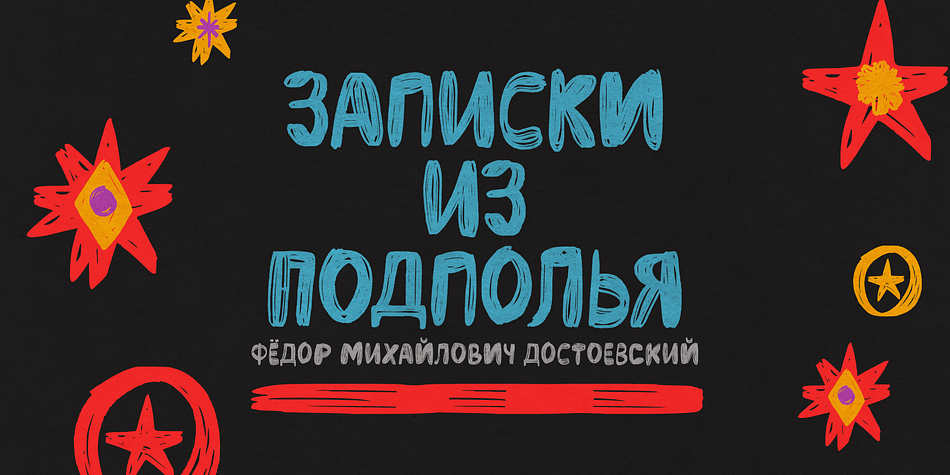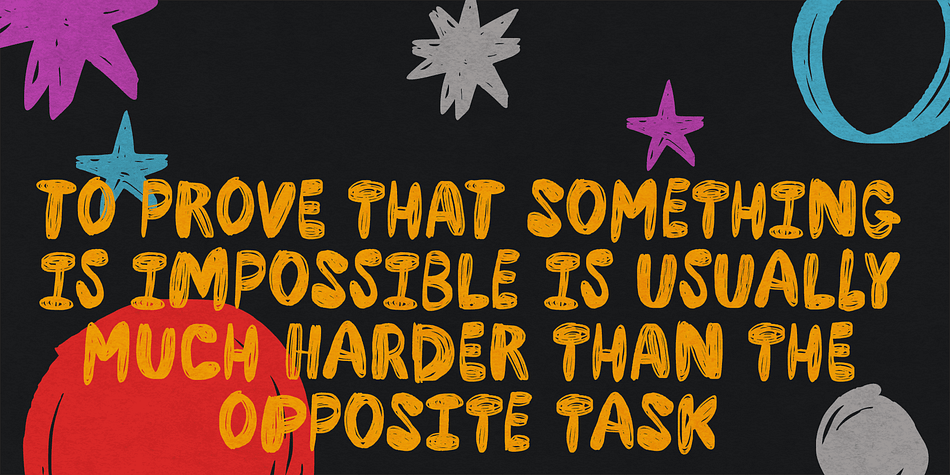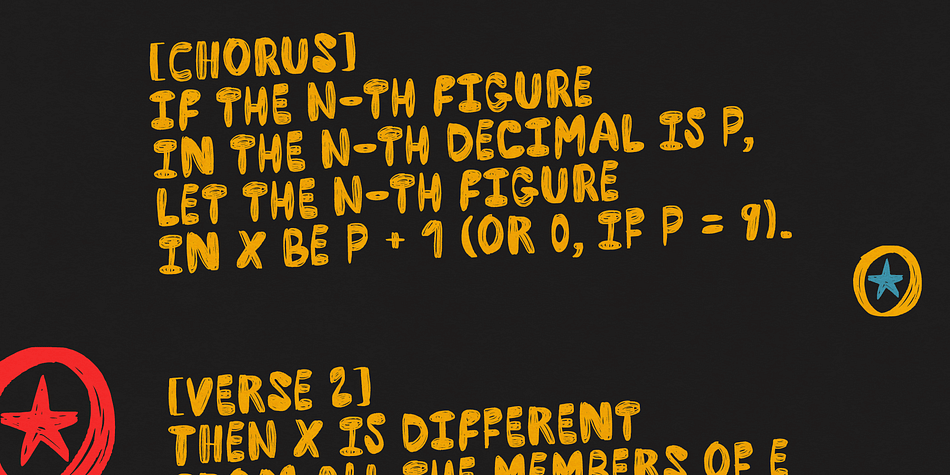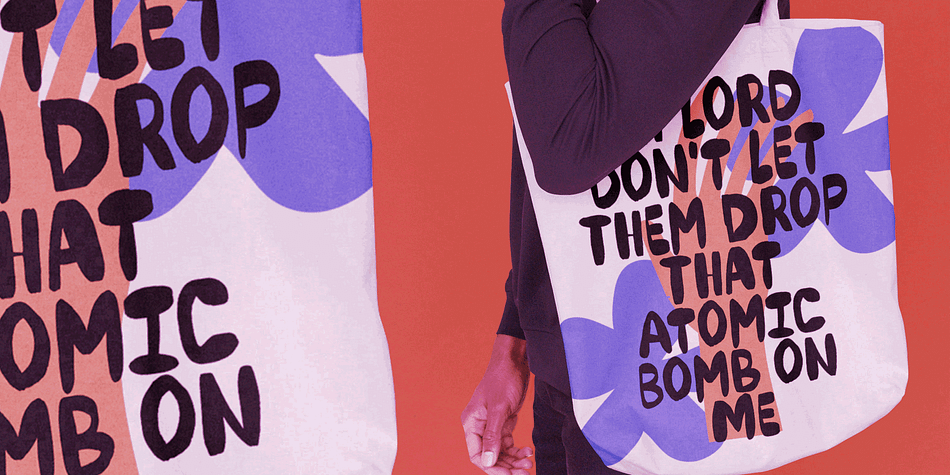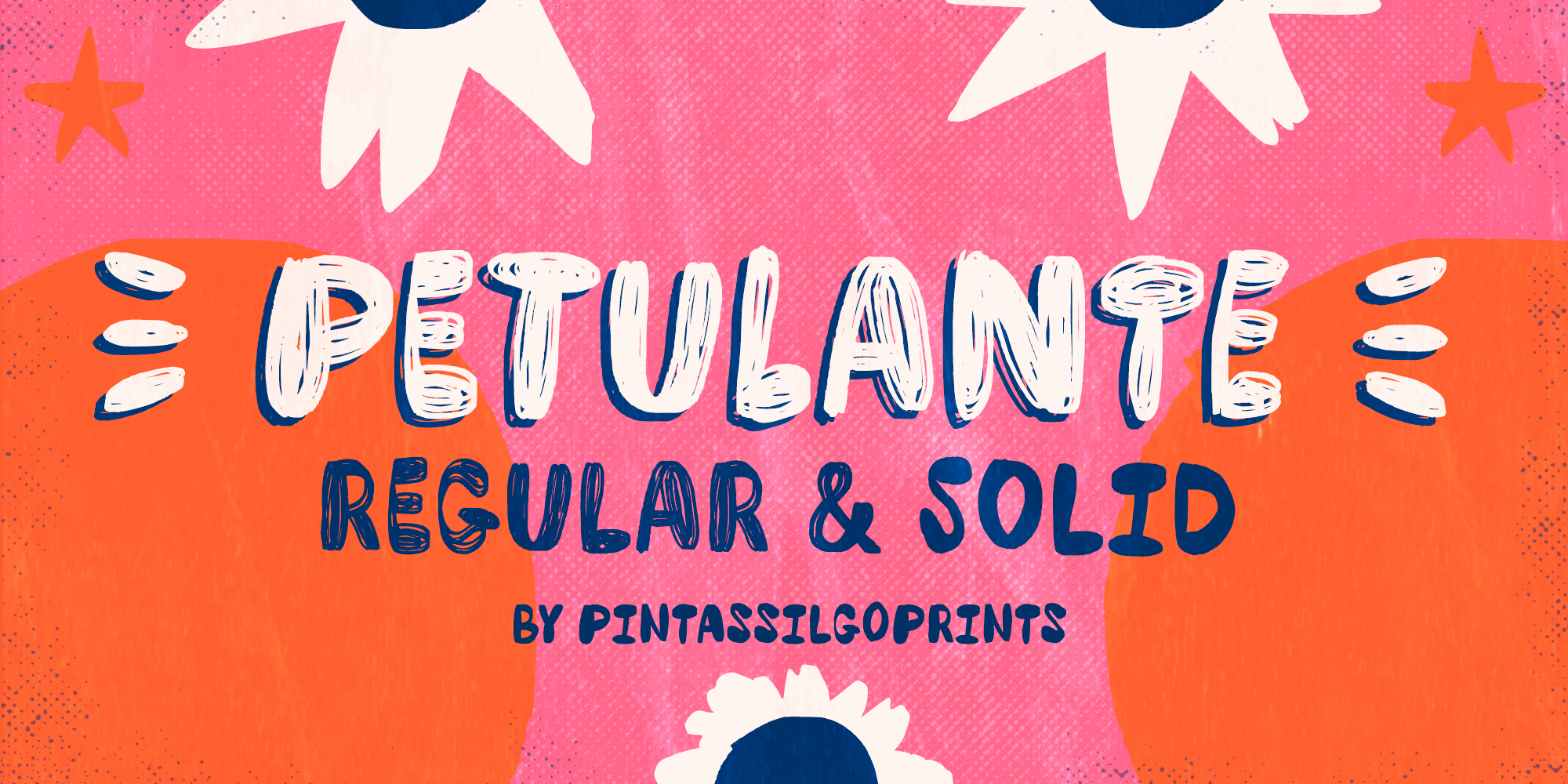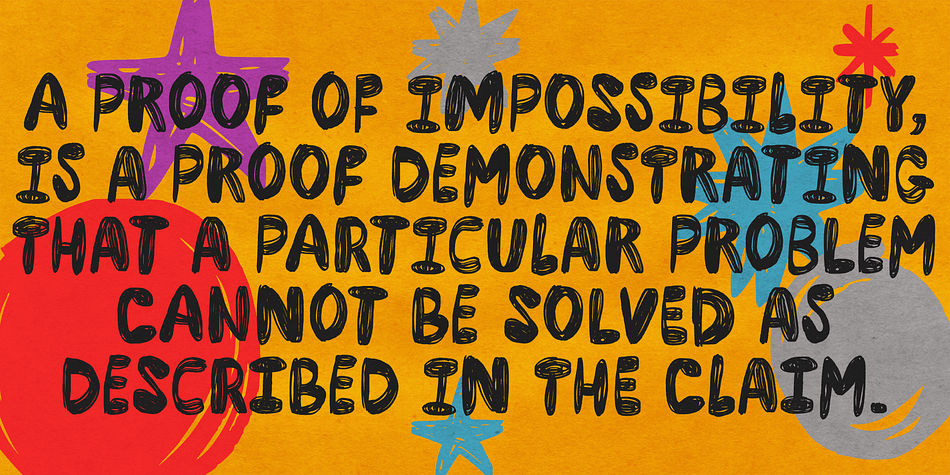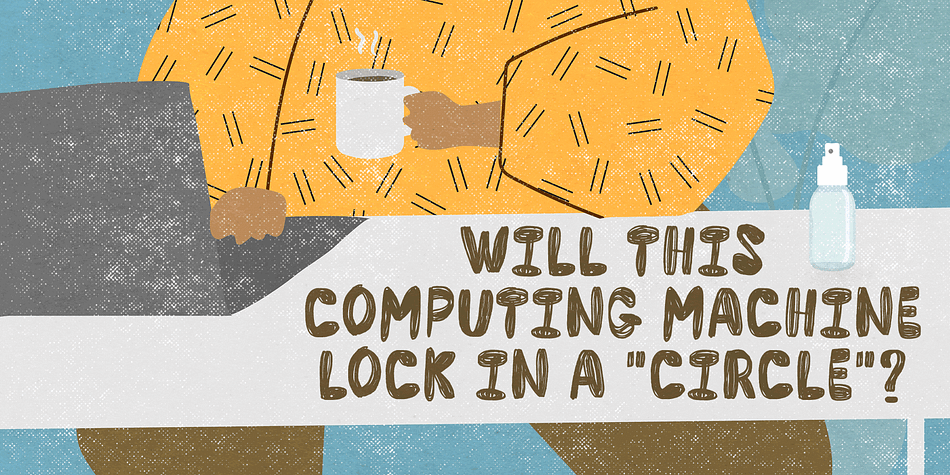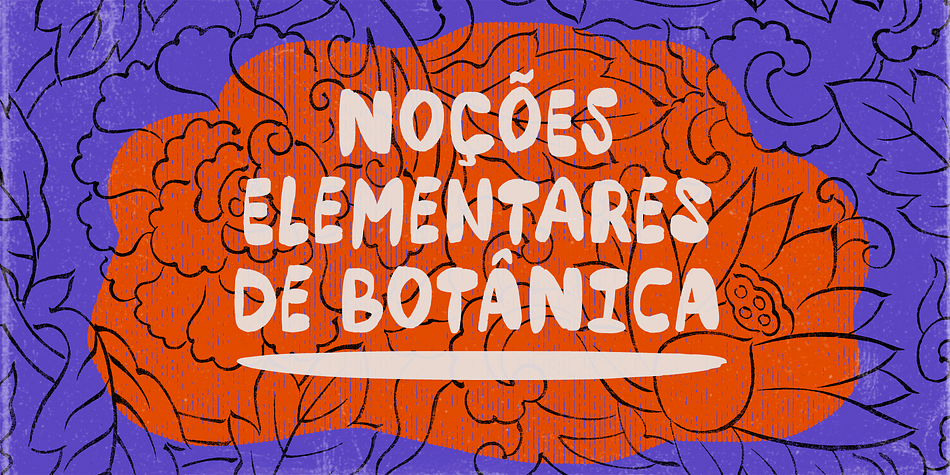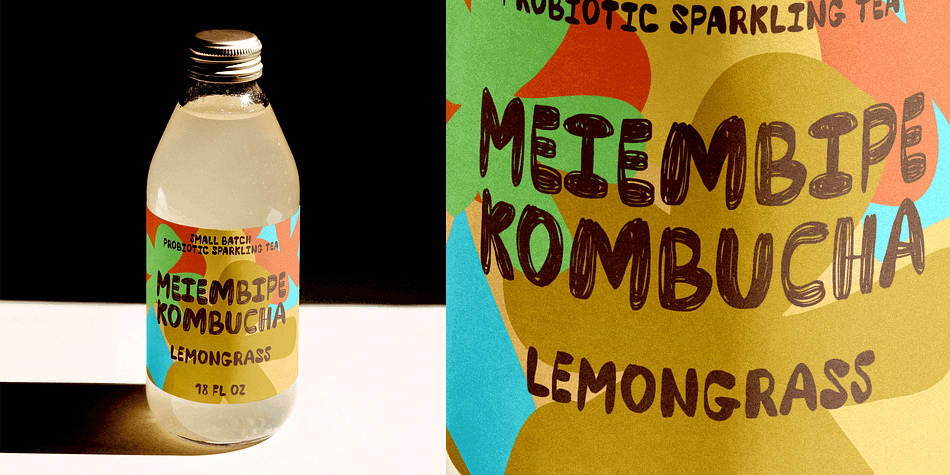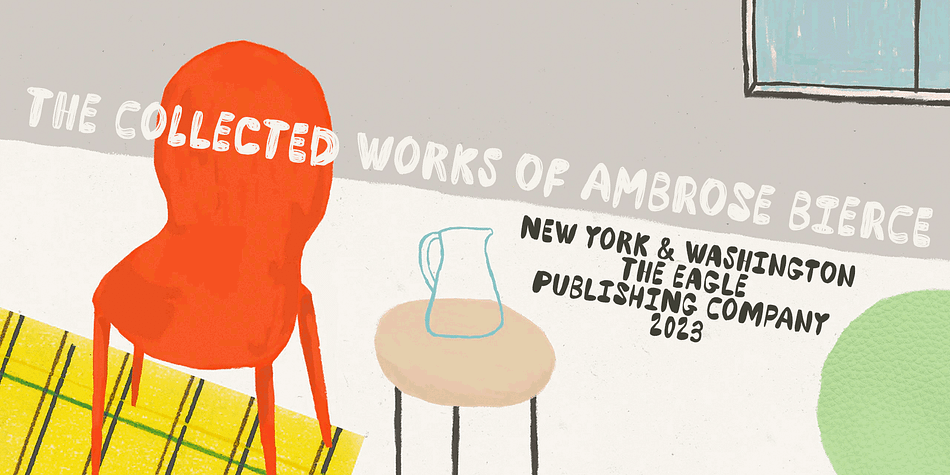
Petulante
Designed by Ricardo Marcin and Erica Jung, Petulante is a brush display and hand display font family. This typeface has two styles and was published by PintassilgoPrints.
Petulante is a striking and creative hand-drawn face with a scribbled feel. It’s an all-caps font and brings two options for each letter and numeral for a more organic and natural look. There are yet a few ornaments to add an extra something here and there.
Petulante is ideal for book covers, packaging, apparel, album art, posters, or any situation where you want a stylish and uncommon hand-crafted look.
And let’s not forget to mention the broad language coverage: Petulante speaks more than 208 languages, including Russian and Greek.